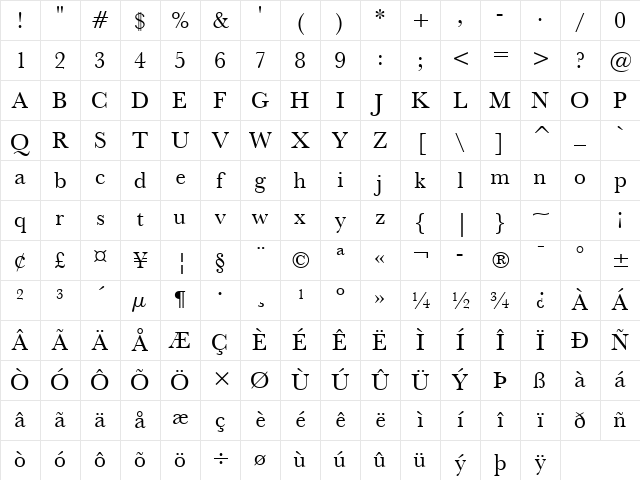
Baskervlle2 BT Roman
Complete Baskervlle2 BT Roman glyph index. Displaying only characters natively supported by Baskervlle2 BT Roman font.
Design Context for Baskervlle2 BT
Baskervlle2 BT is a composed and adaptable typeface that performs quietly and consistently across a wide range of design contexts.